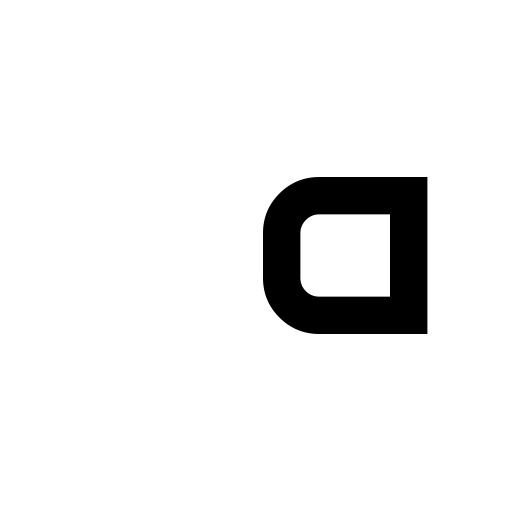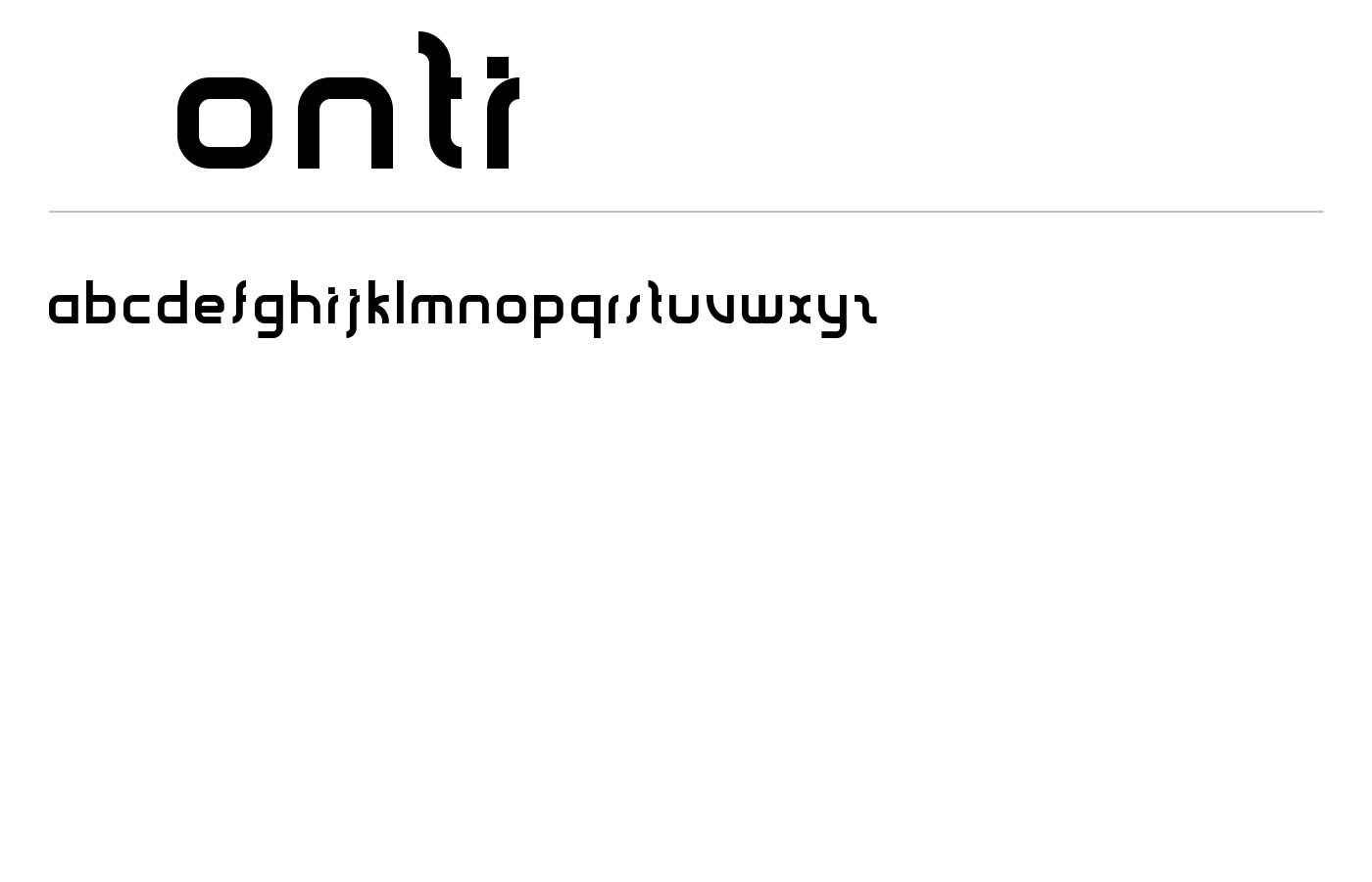
Monti Minimal Typeface
Monti minimal free typeface is a new sans serif all same weight minimal font. Monti is also the latest font coming from the talented author, Wassim Abdallah. It is quirky yet unique that makes Monti perfect as logotype and branding font. This free font is free for personal and commercial use.